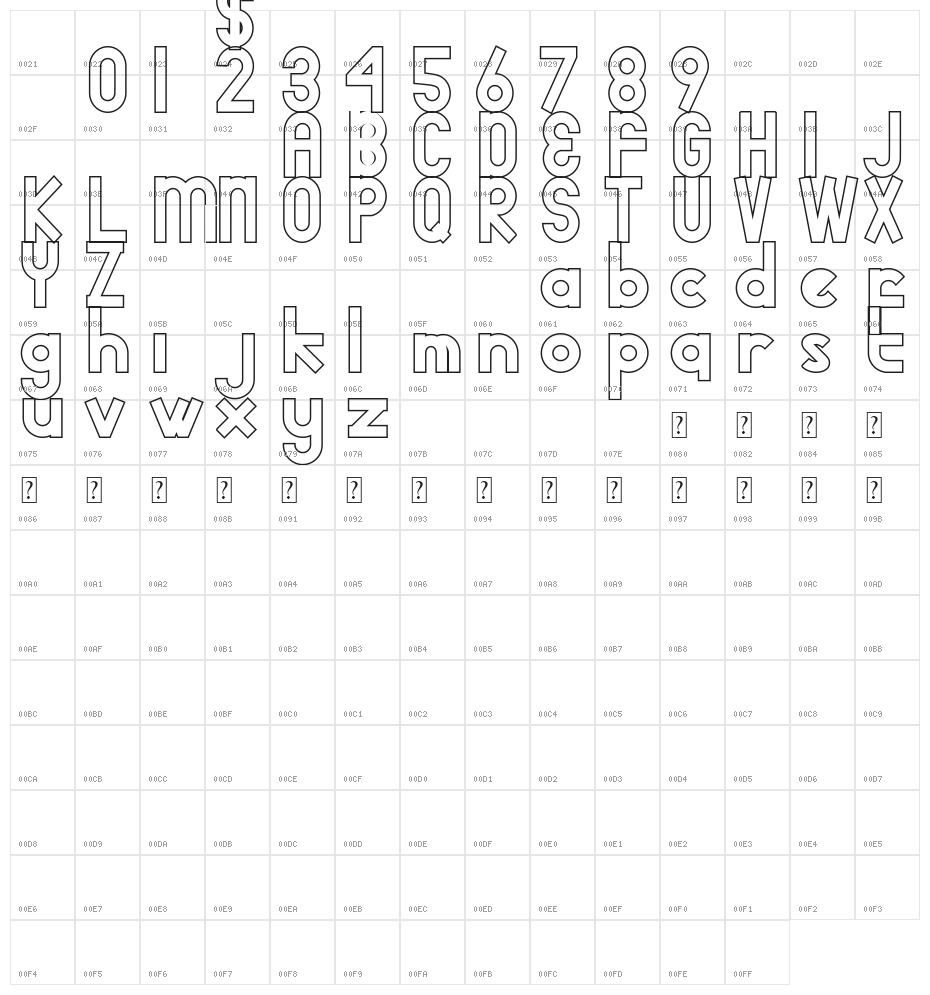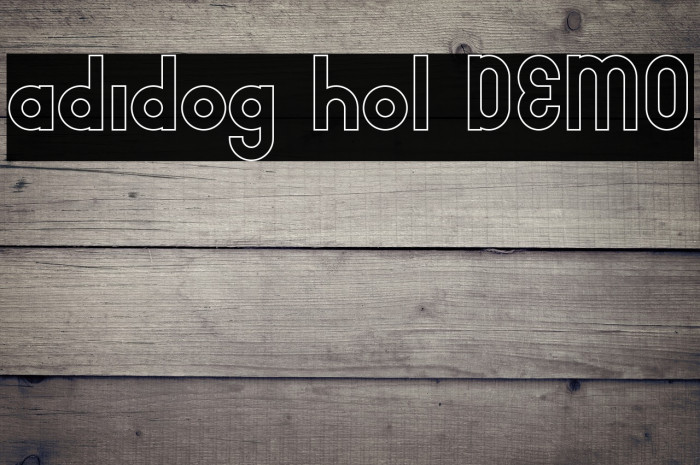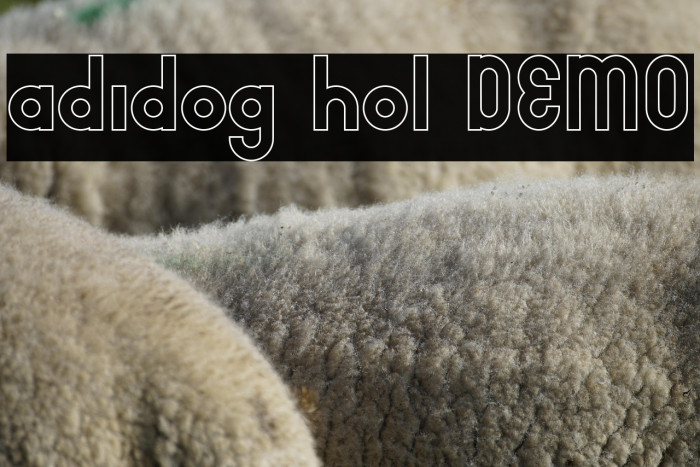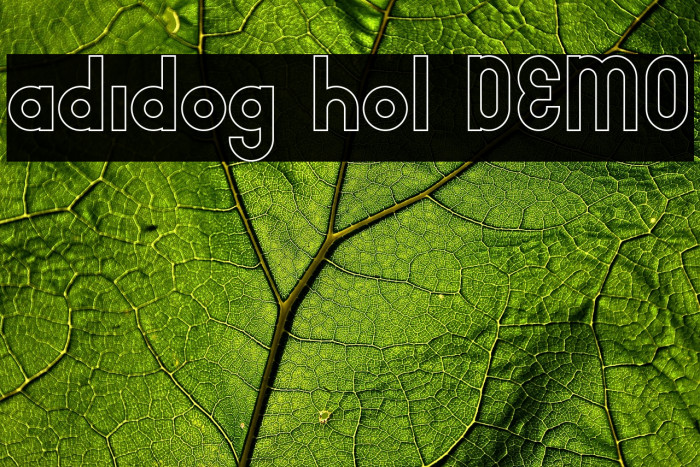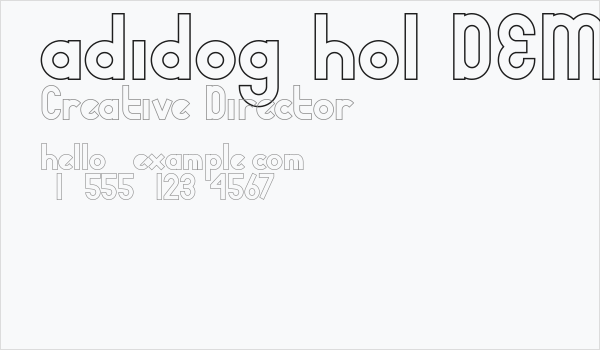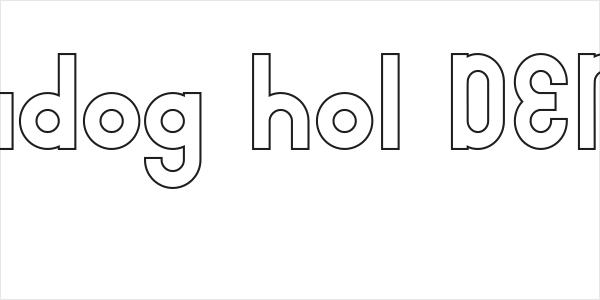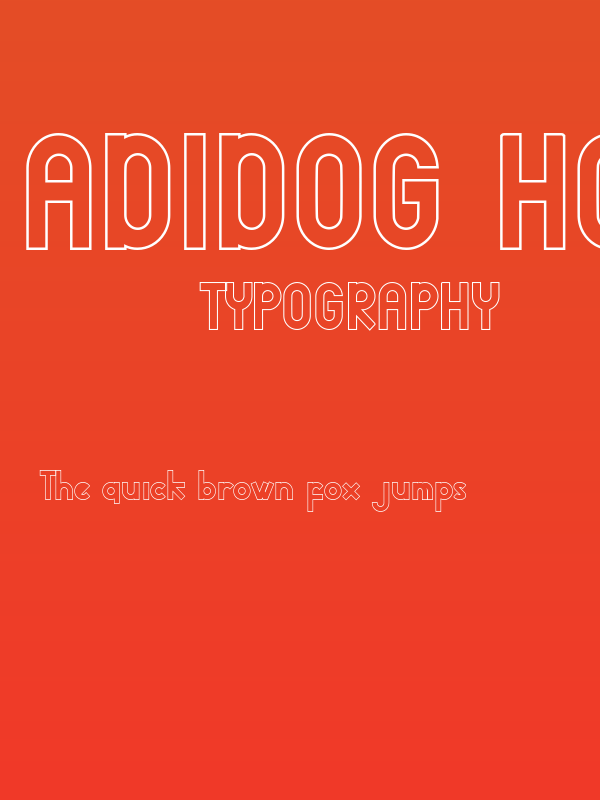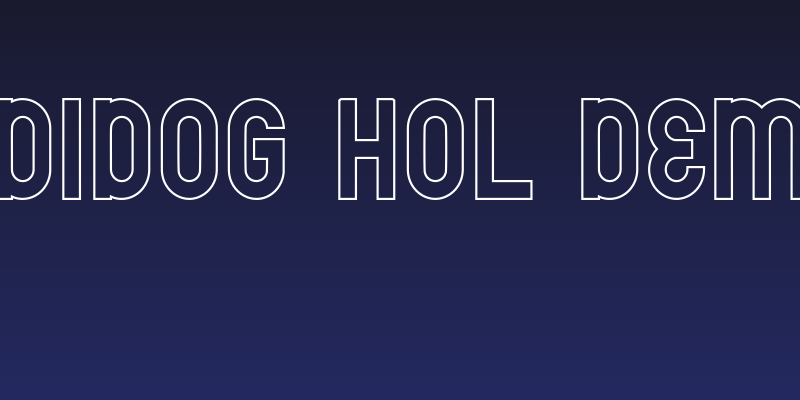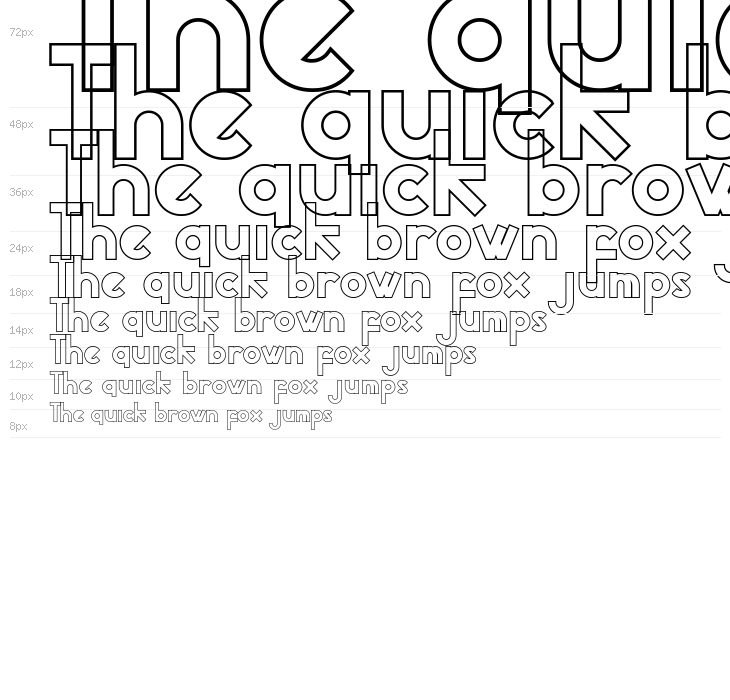
adidog hol DEMO Font
adidog hol DEMO Description
This font features a bold, geometric style with a modern and playful aesthetic. The characters are outlined, giving them a hollow appearance that adds a unique visual interest. The uppercase and lowercase letters maintain a consistent width, creating a harmonious look. The numbers and special characters follow the same design principles, ensuring uniformity across all glyphs. The font's clean lines and structured form make it suitable for a variety of design applications, particularly where a contemporary and eye-catching look is desired.
| Proposed Projects | Ideal for branding, posters, headlines, and any design project requiring a modern and distinctive typeface. |